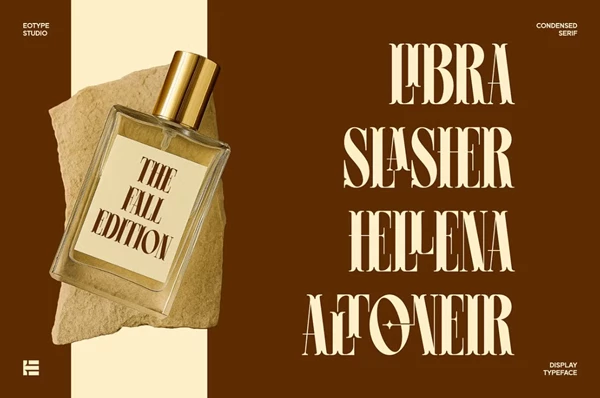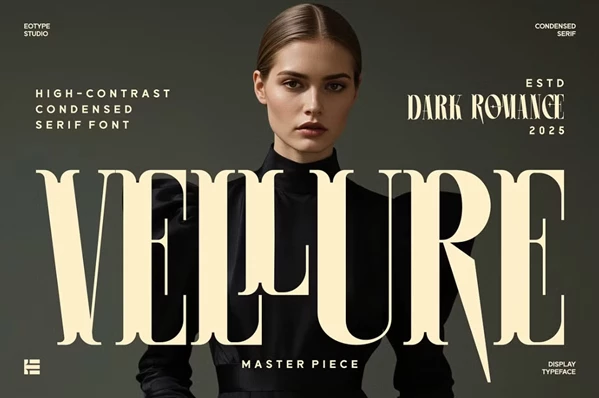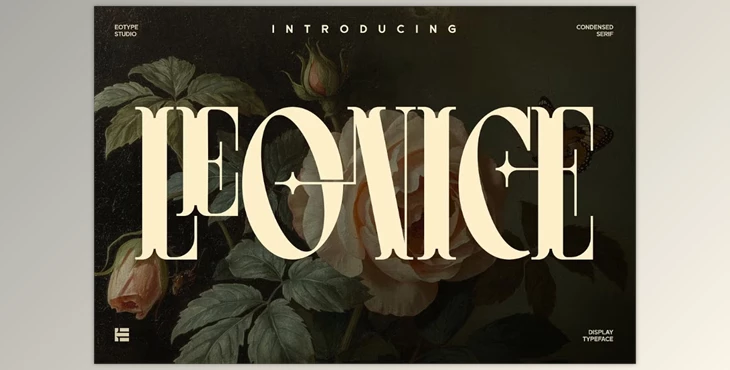
Leonice Display Font:
Leonice Display is a stunning display font with a condensed serif structure featuring high contrast, which makes it remarkable. With every character, Leonice conveys elegance and sophistication. It is a font that is also very well thought out in terms of design, since it comes with stylistic alternates and carefully crafted ligatures. Therefore, it will serve designers who want to make bold statements ideally. Leonice is suitable for haute couture branding, editorial design, and even for some cinematic captions. It provides a unique, timeless feel while at the same time modern, ensuring any project will be striking. If you want to achieve classic with a touch of modernity, Leonice will do the trick as it whispers elegance while the impact is powerful.
"Leonice Display Font" Samples: